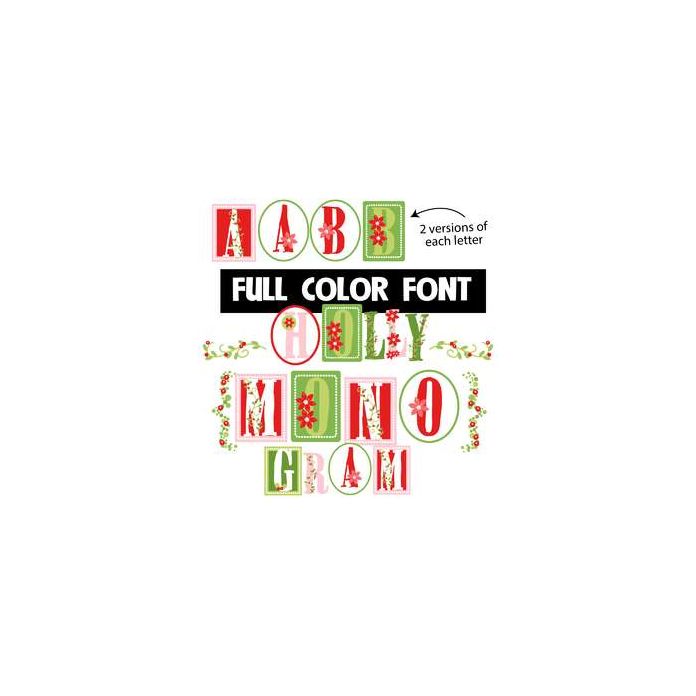
This full-color font features monogram lettering with different holly patterns. This font works best for titles, displays, posters and more. Please note color fonts will show as black in non compatible programs. This font type is compatible with Silhouette Studio.